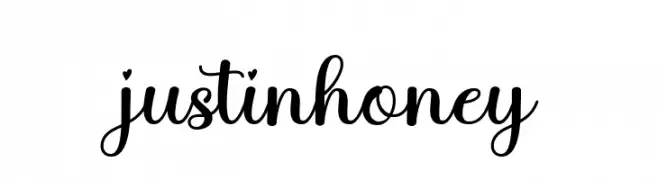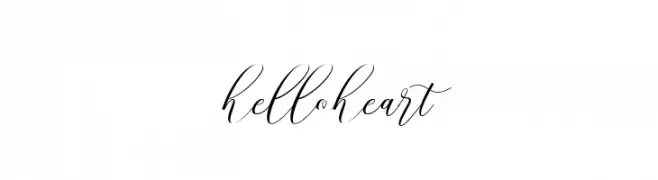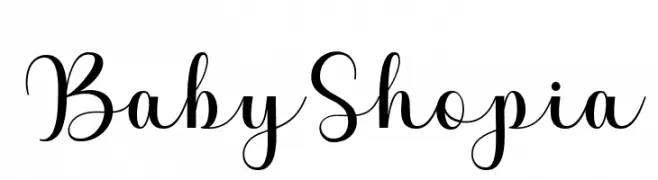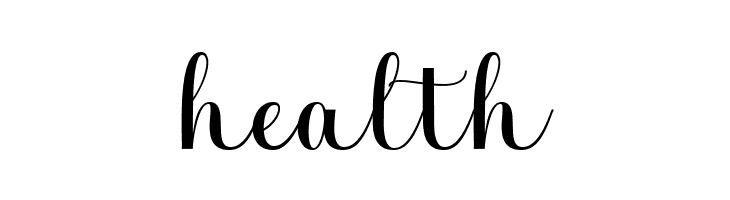
A playful script font with heart embellishments and flowing cursive style.
An elegant script font with ornate swirls and decorative elements.
An elegant script font with flowing, cursive letterforms and graceful curves.
A cursive font with elegant loops and swashes, perfect for artistic and sophisticated designs.
A playful and elegant script font with decorative swirls and a handwritten feel.
An elegant script font with fluid, cursive strokes and refined flourishes.
A sophisticated script font with flowing, interconnected letters and elegant flourishes.
A graceful script font with flowing, cursive strokes and elegant loops.
An elegant script font with decorative swirls and flowing cursive style.